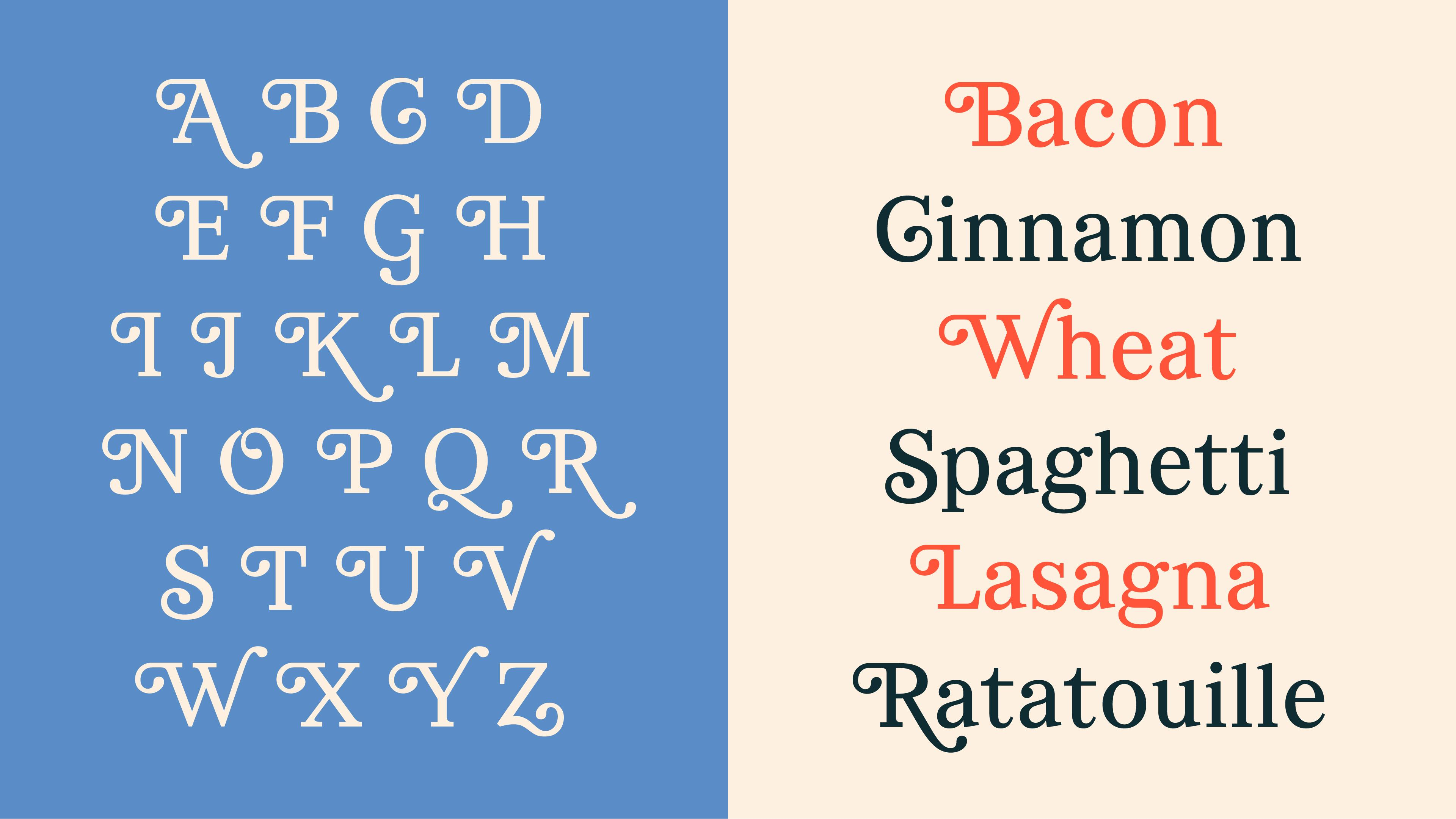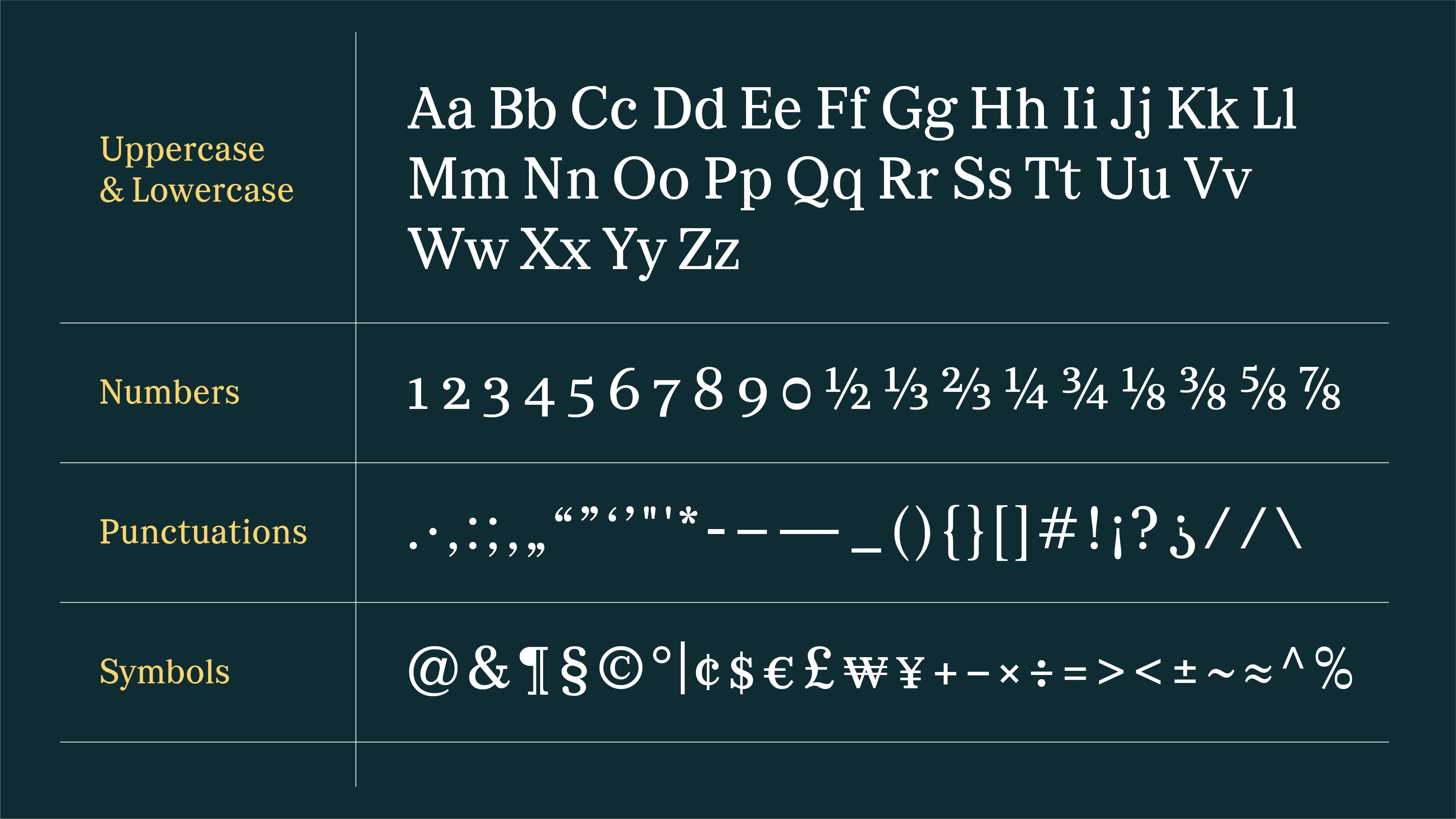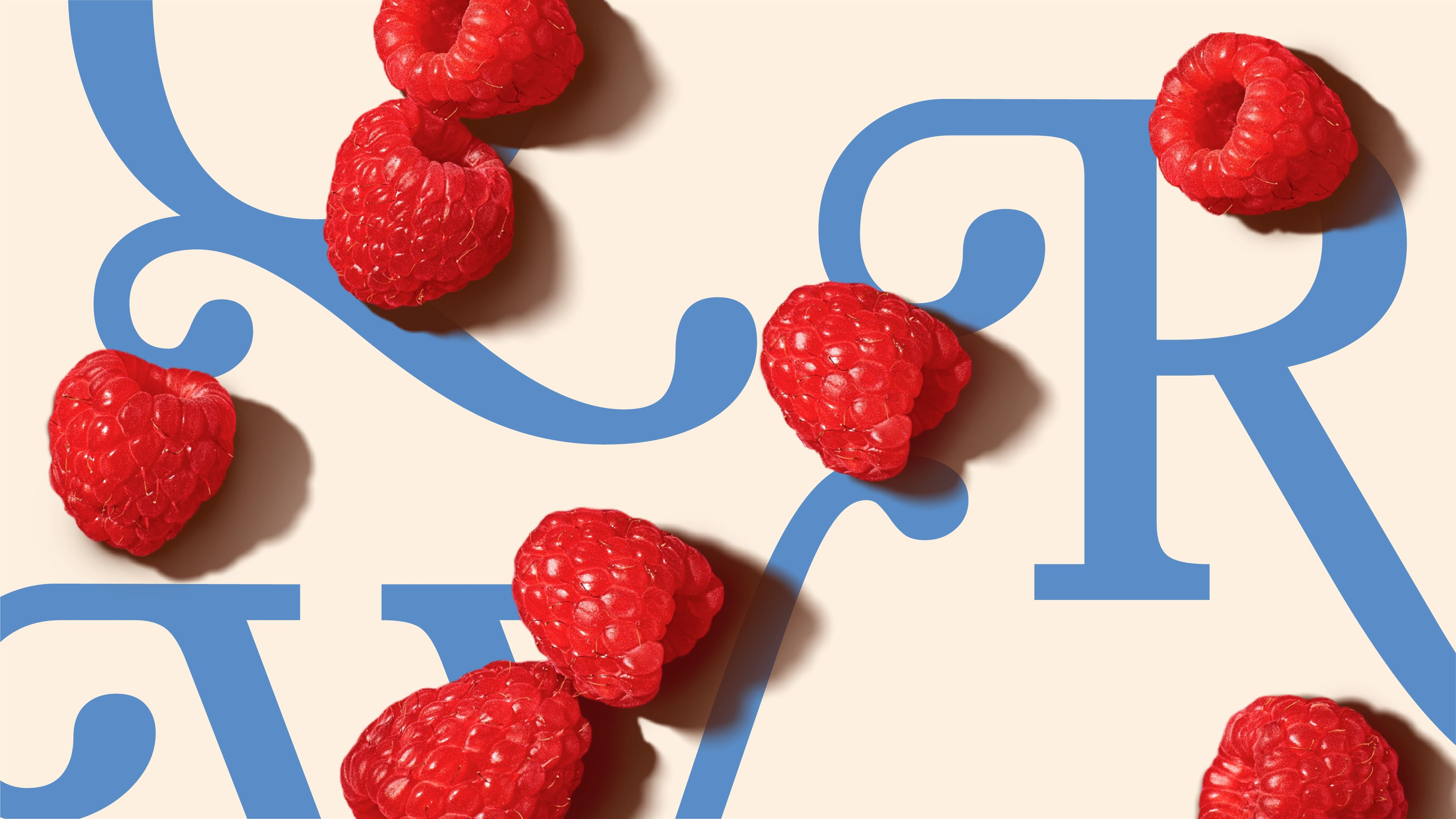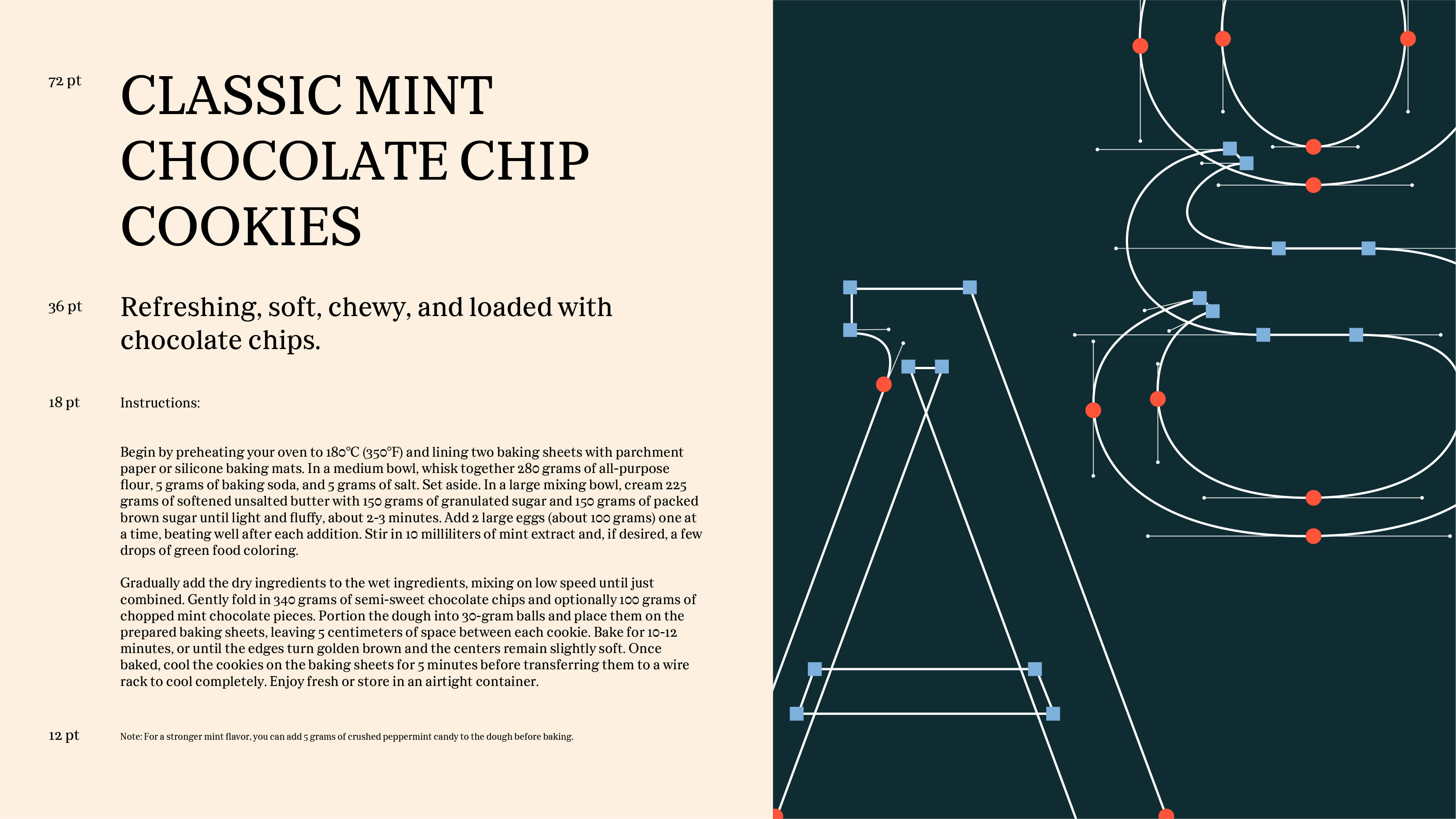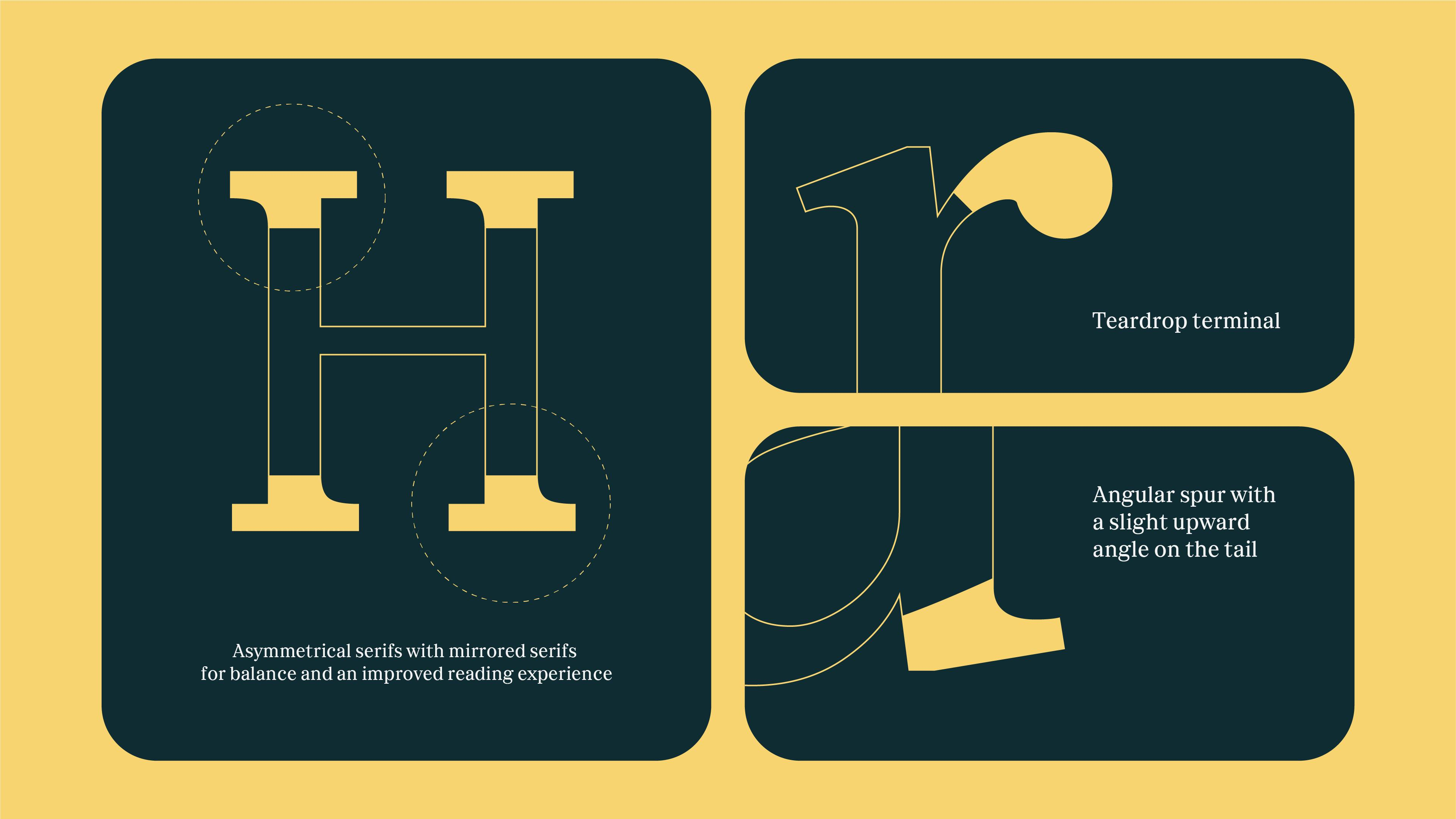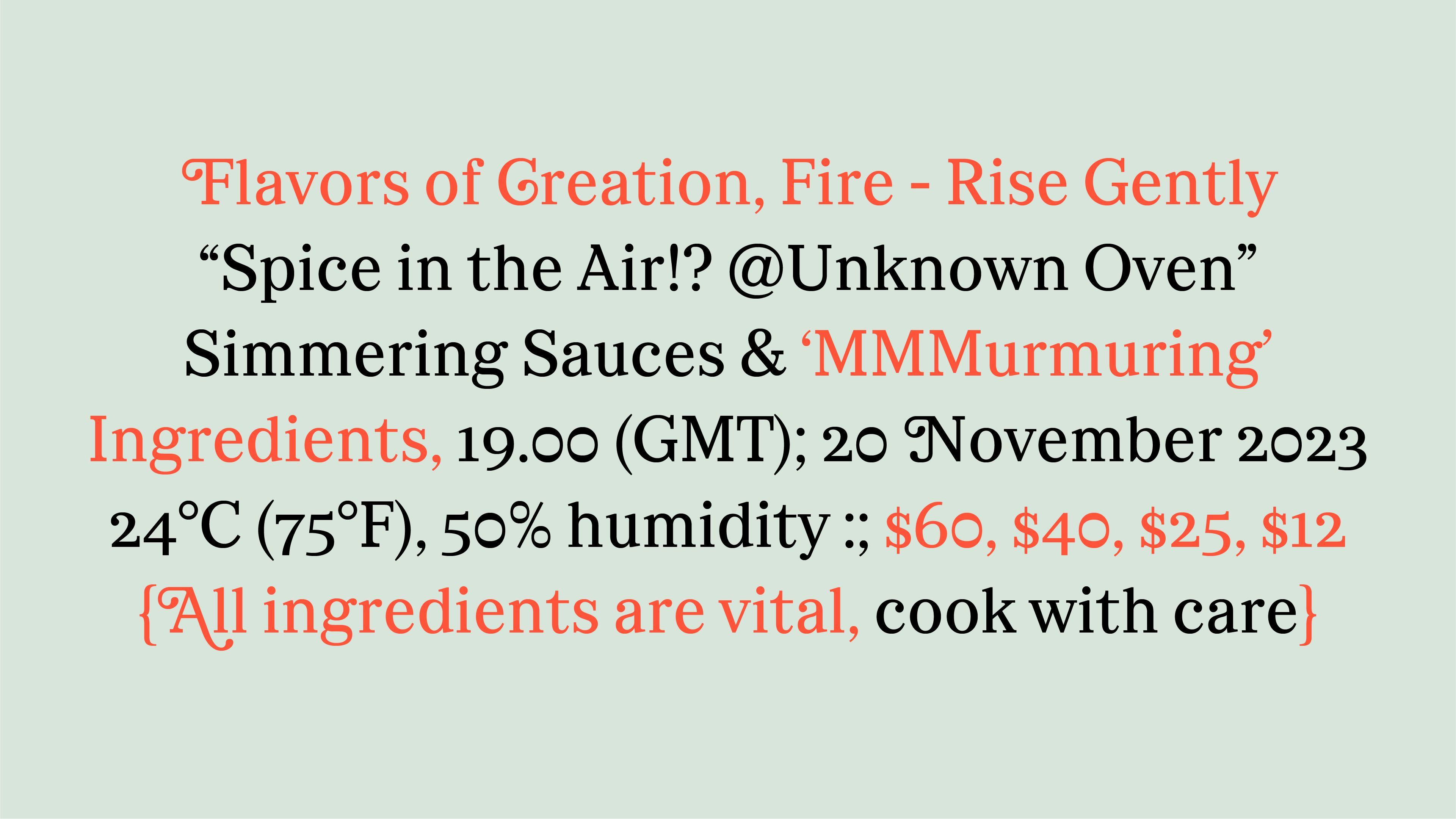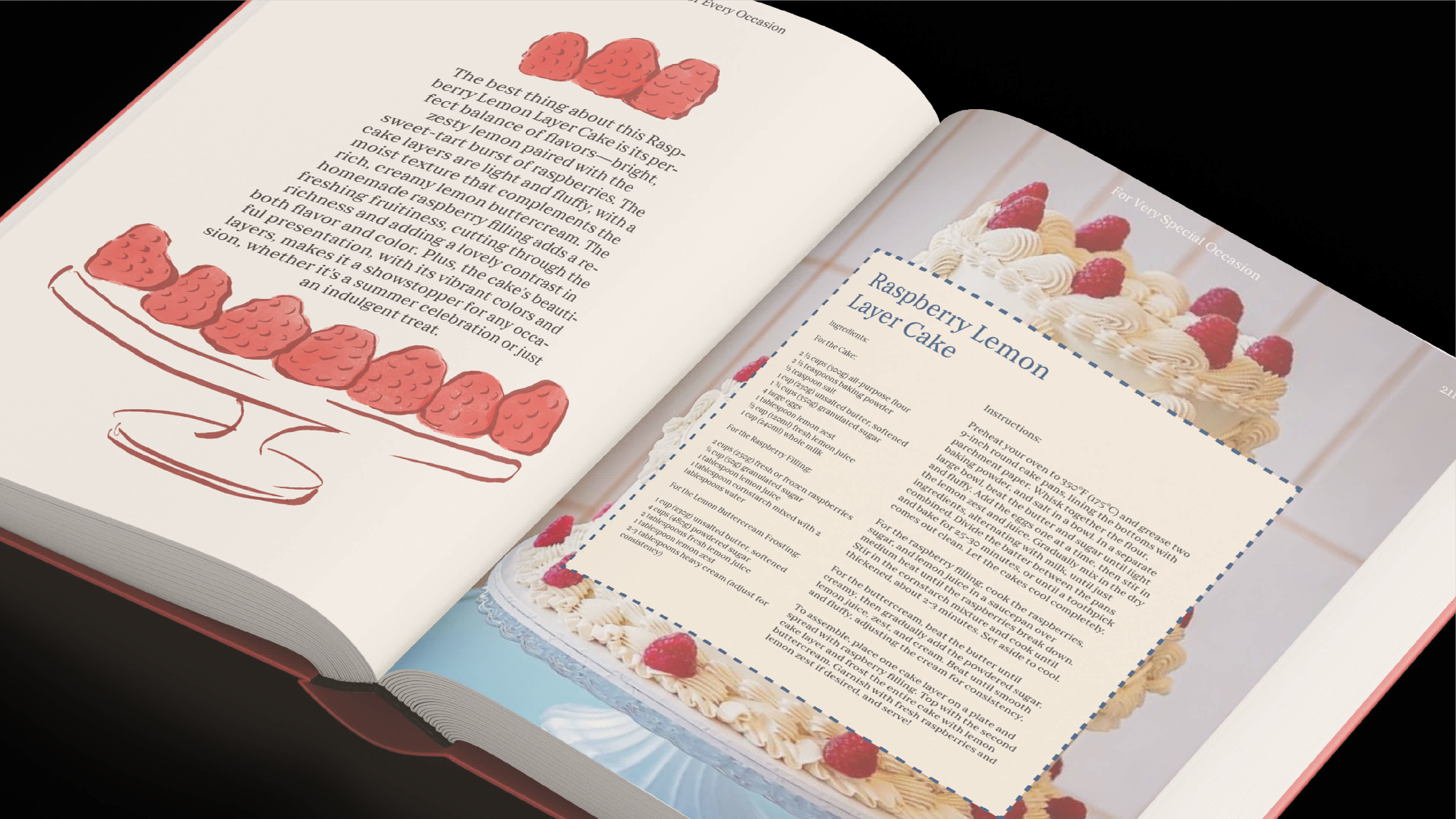
Marzipan | Font Design
The Brief
Marzipan is a self-initiated typeface project. The goal was to design a serif font specifically suited for cookbook design and food-related editorial, something that feels warm, classic, and inviting on the page.
The Approach
The starting point was classic serif typography, but with a focus on the specific feeling cookbooks need: warmth, readability, and a sense of craft. The typeface needed to feel at home next to food photography and recipe layouts without competing for attention.
Key Decisions
Marzipan is a serif typeface with asymmetric serifs, giving it a subtle distinctiveness that sets it apart from standard book serifs. A stylistic set adds further flexibility for designers who want to vary the character. The design is one style, focused on getting the core weight right rather than expanding into a full family. The typeface is currently unreleased.
Marzipan is a timeless typeface, crafted for the warm pages of cookbooks and other printed media.